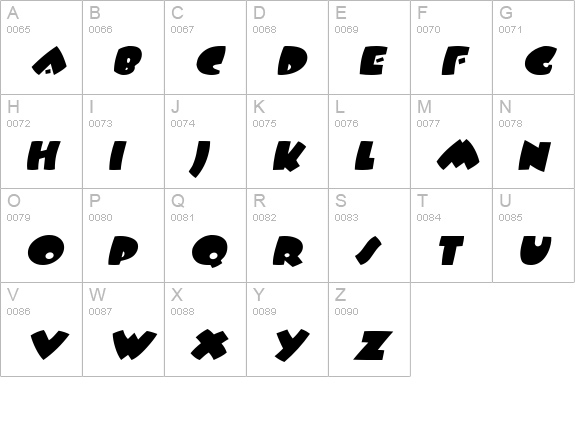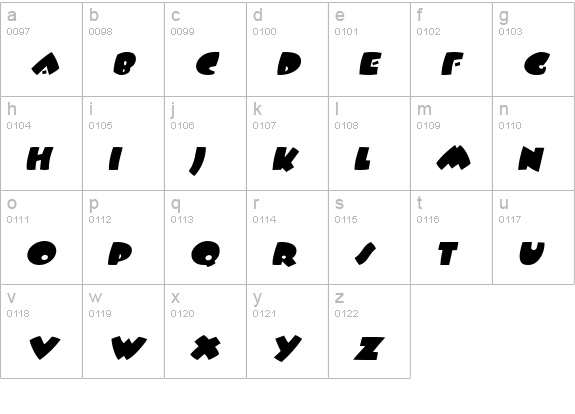
WampumExtended Italic Font Details
WampumExtended Italic is a distinctive, italic variant in the WampumExtended typeface family \xE2\x80\x94 well suited to design and typography projects.
Introducing WampumExtended Italic, a captivating and versatile font that seamlessly blends elegance with a touch of modernity. This remarkable typeface is the perfect choice for those seeking a unique and stylish design for their projects. With its elongated and slanted letterforms, WampumExtended Italic exudes a sense of sophistication and grace. Its beautifully crafted curves and subtle variations in stroke width create a visually pleasing flow that adds a touch of dynamism to any text. Whether you're designing a logo, crafting a headline, or working on a branding project, WampumExtended Italic is sure to make a lasting impression. Its distinctive and refined appearance is bound to catch the eye and leave a memorable impact on your audience. What's even better is that WampumExtended Italic is available for free! That's right, this extraordinary font can be downloaded at no cost from FontsMarket.com. It's now easier than ever to elevate your designs without breaking the bank. Embrace the freedom to create stunning visuals with this exceptional typeface. So why wait? Unlock the potential of your designs with WampumExtended Italic. Download it for free today at FontsMarket.com and let your creativity soar to new heights.